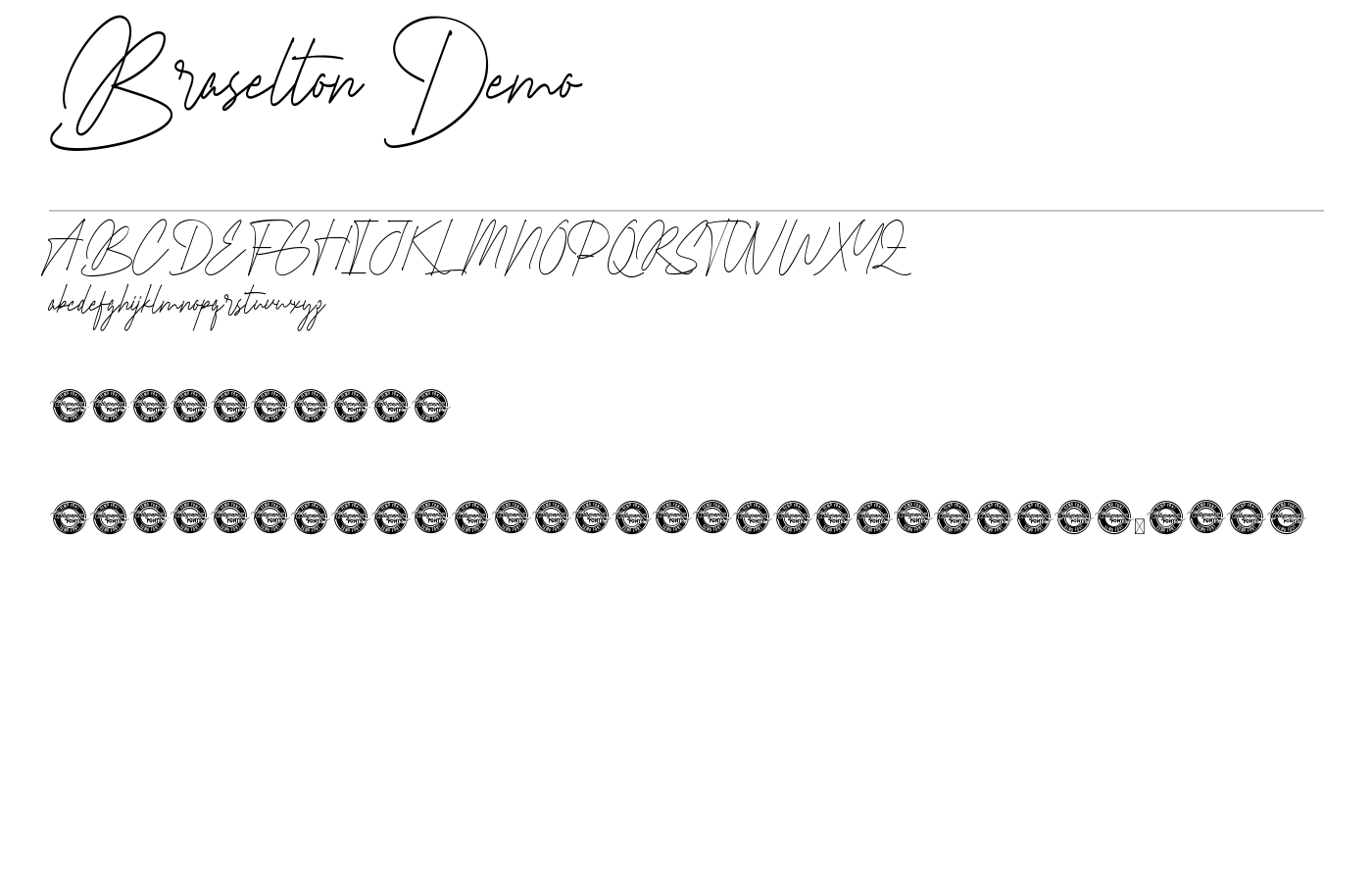
Braselton Demo is an elegant, thin-script font that mimics delicate, flowing handwriting with a modern flair. Its tall, narrow letterforms and smooth, continuous strokes make it ideal for sophisticated branding, invitations, and stylish headlines where a refined, personal touch is desired. This font works best in designs that need a graceful yet contemporary handwritten feel.
Braselton Demo Font
About Braselton Demo Font
| Font family | Braselton Demo Font |